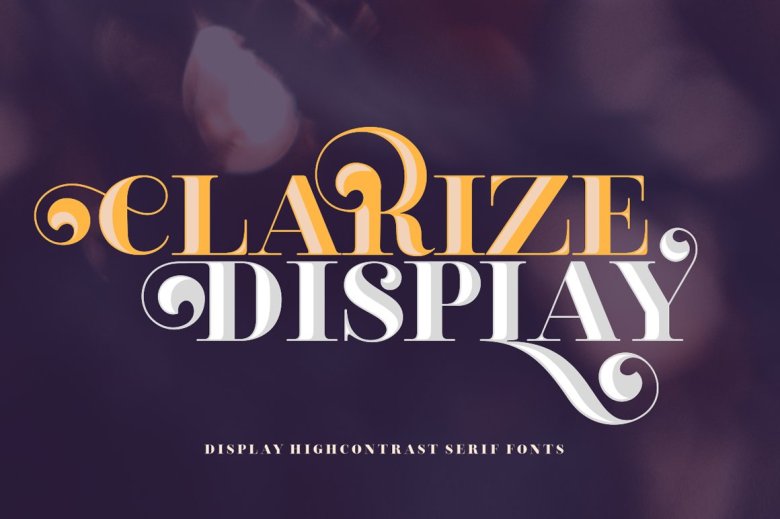
Clarize Display Font Family
Clarize Display Font
Clarize Display Font Family is a serif font. This version has lots of alternate characters. You can easily access them by opentype features (given PUA code). Clarize Display is perfect for designers who are working in fashion, magazine, blog, advertising, packaging, branding, etc.